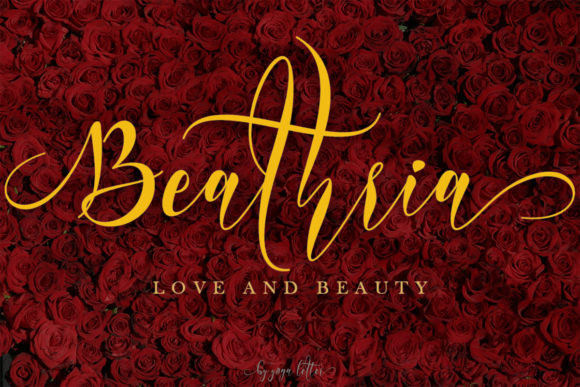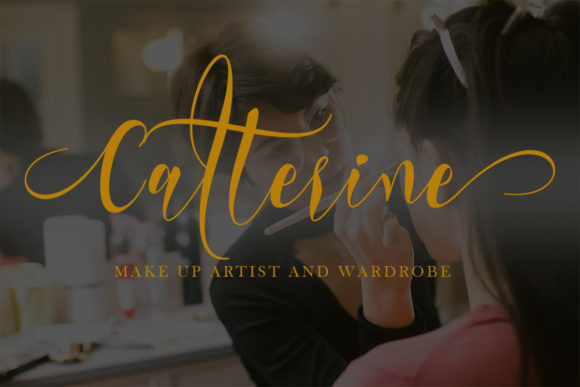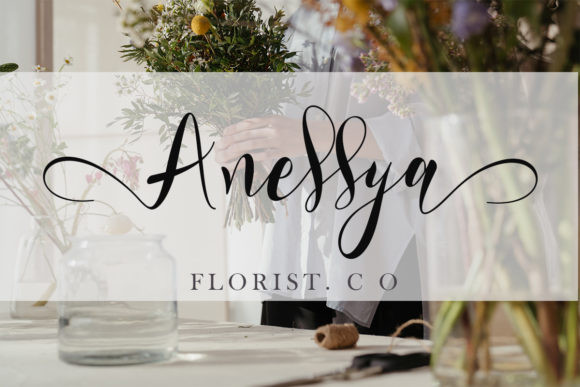
Beathria Font
Beathria is an incredibly elegant and beautiful handwritten font. Romantic and dreamy, this font is the perfect choice for each of your creations. Beathria is PUA encoded which means you can access all of the glyphs and swashes with ease!